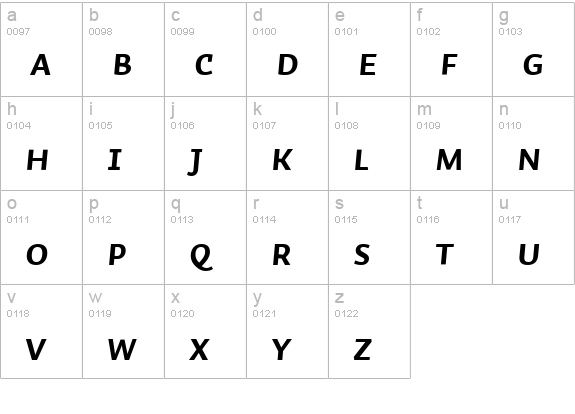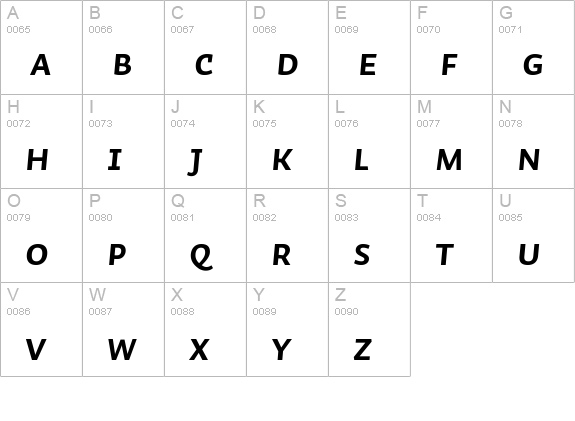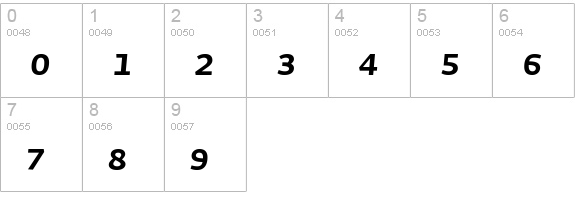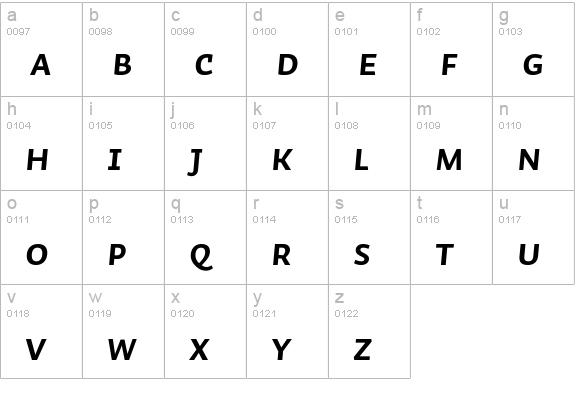
Auto 1 Bold Italic SmCp is a strong, high-contrast, italic variant in the Auto typeface family \xE2\x80\x94 well suited to headlines, attention-grabbing titles, and strong calls-to-action.
Auto 1 Bold Italic SmCp font is a stylish and modern typeface designed for bold statements and eye-catching designs. Its sleek and sophisticated appearance makes it perfect for headlines, titles, and branding projects. The combination of bold weight and italic slant adds a touch of elegance and flair to any text. This versatile font is ideal for both print and digital projects, offering a professional and polished look. Whether you're designing a poster, brochure, website, or logo, Auto 1 Bold Italic SmCp font will make your text stand out. Best of all, this font is available for free download at FontsMarket.com. Don't miss out on the opportunity to enhance your designs with this stunning typeface. Download Auto 1 Bold Italic SmCp font today and take your projects to the next level!